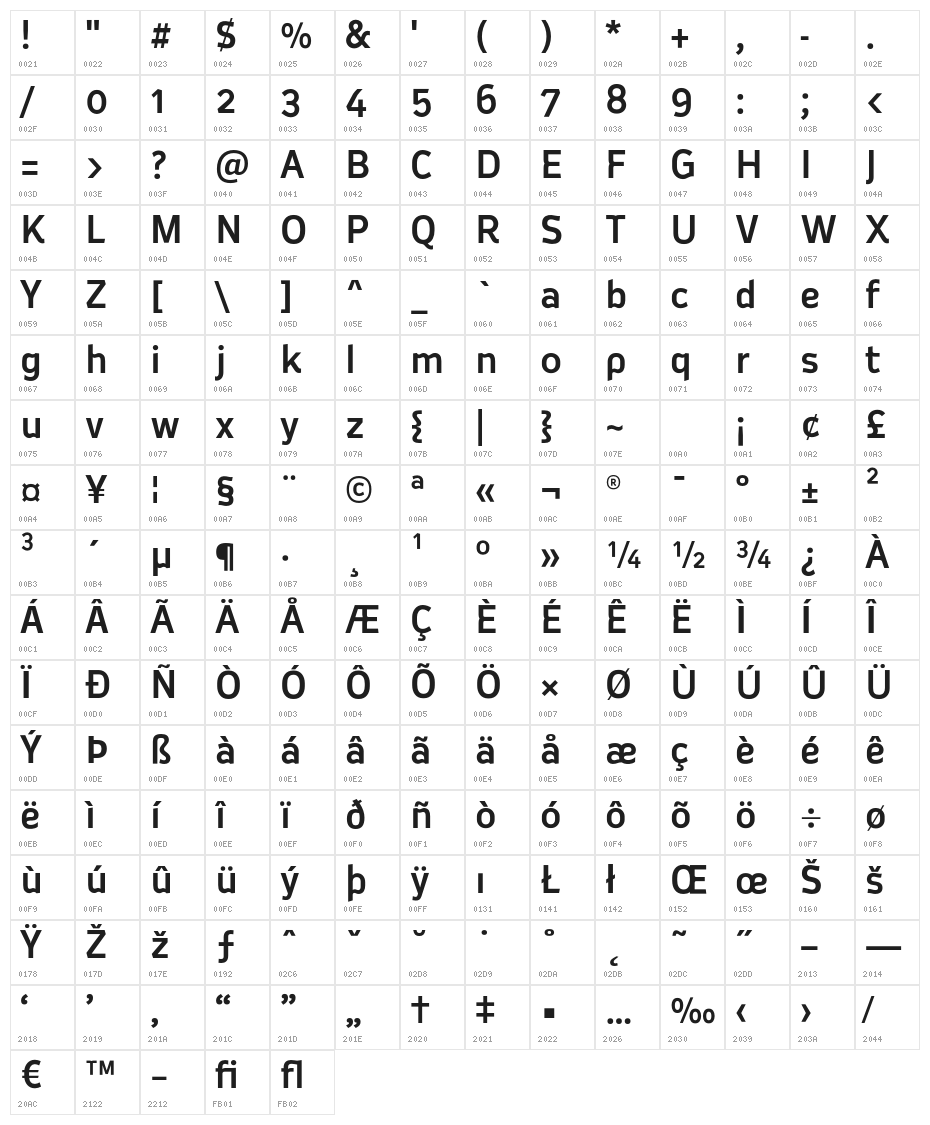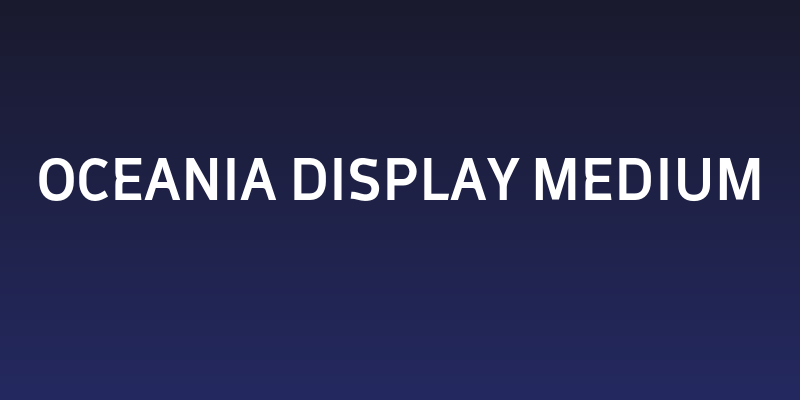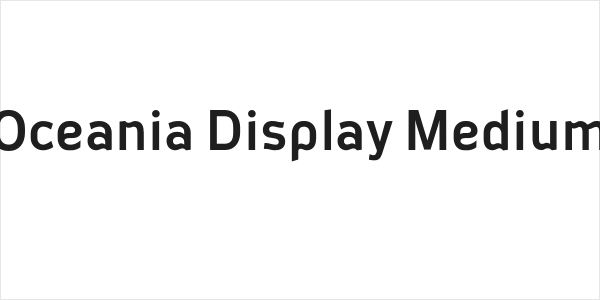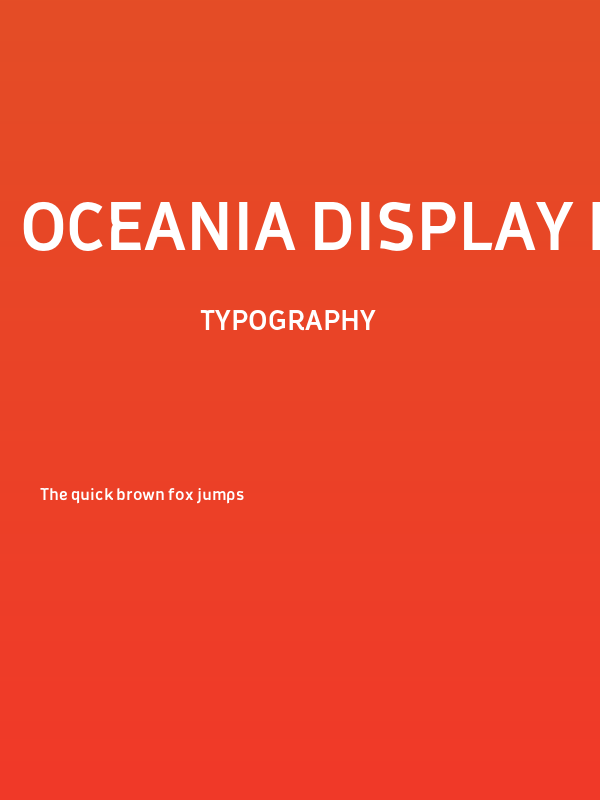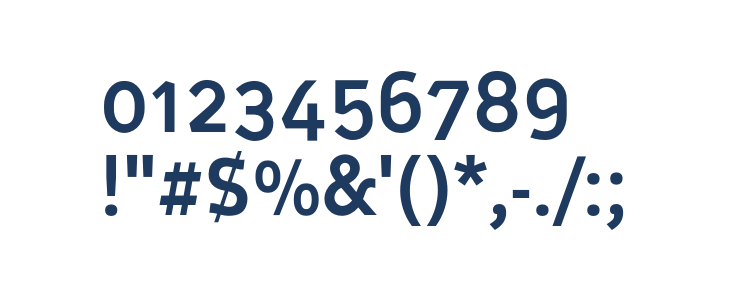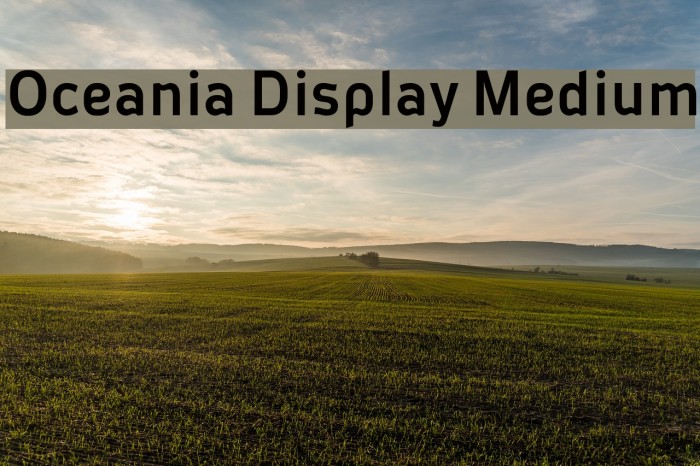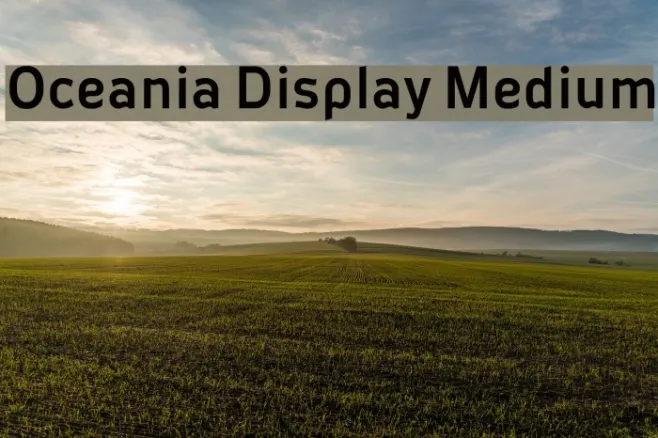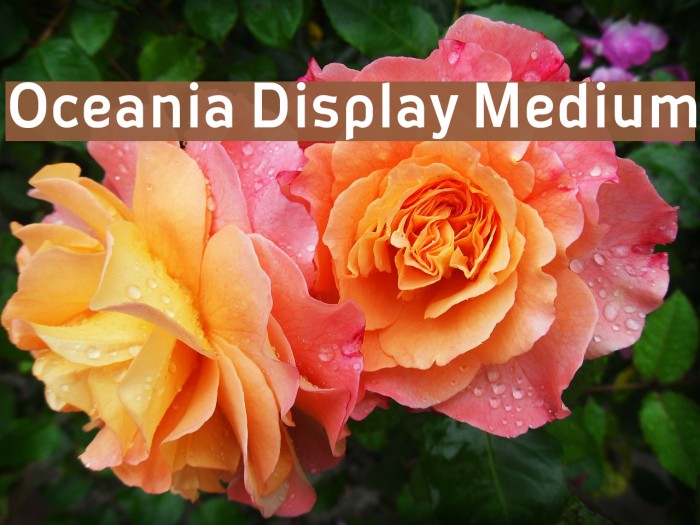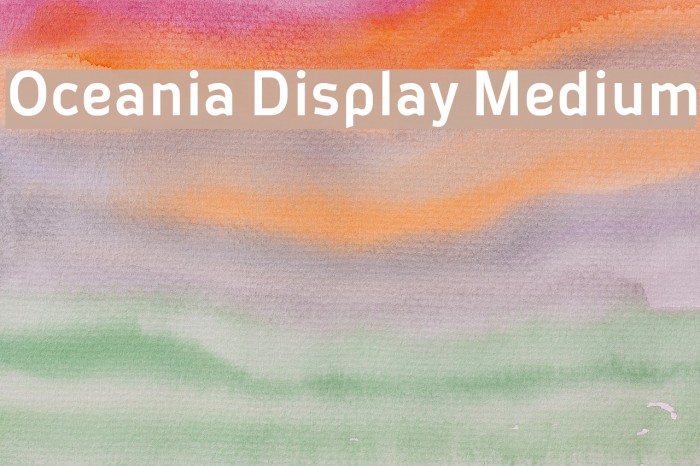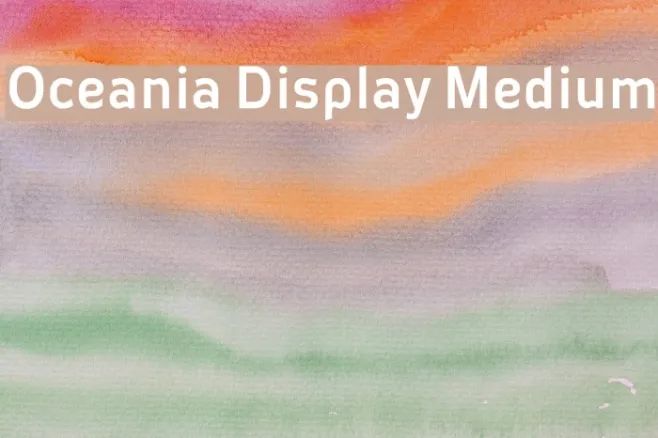
Oceania Display Medium Font
Oceania Display Medium Description
This font features a clean and modern design with a focus on readability and simplicity. The characters are well-proportioned, with a consistent stroke width that gives it a balanced appearance. The uppercase letters are bold and assertive, while the lowercase letters maintain a friendly and approachable feel. The numerals are clear and distinct, making them easy to read. Special characters are designed with the same attention to detail, ensuring they integrate seamlessly with the rest of the font. Overall, this font is versatile and suitable for a wide range of applications.